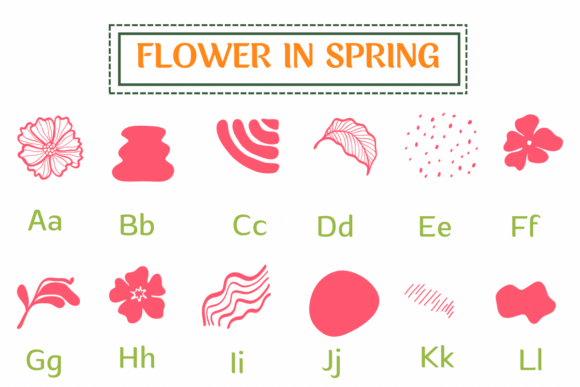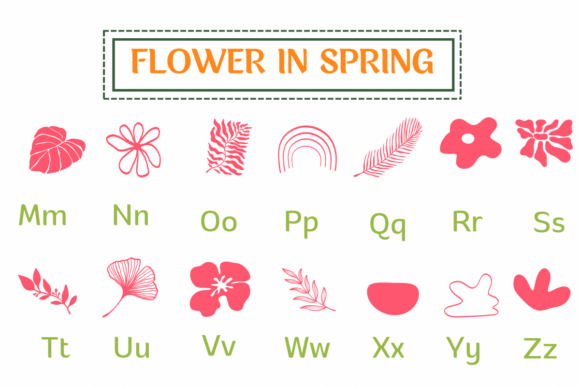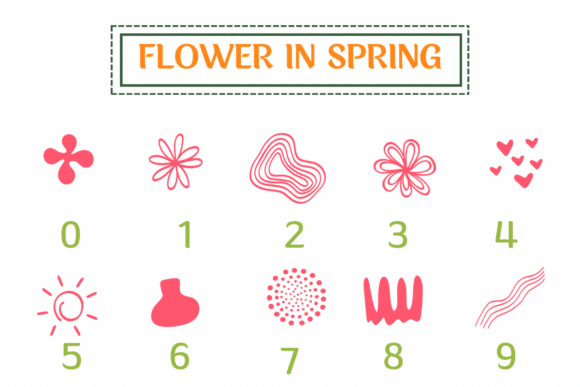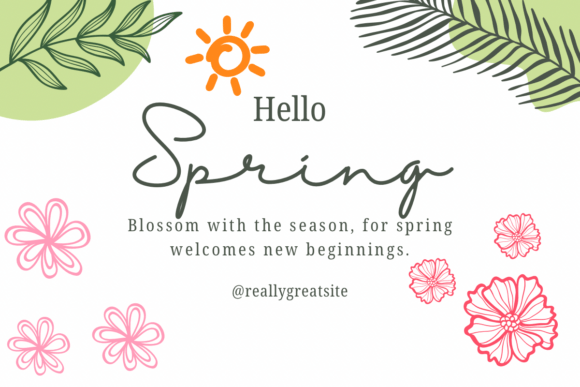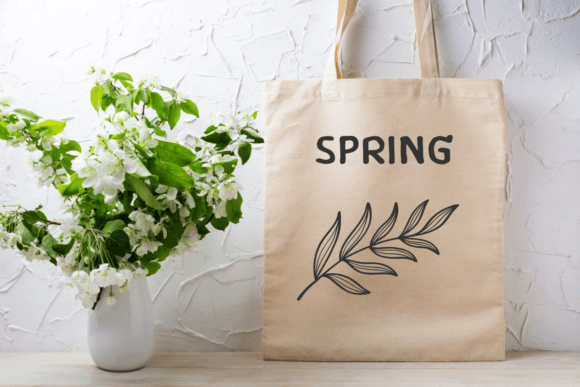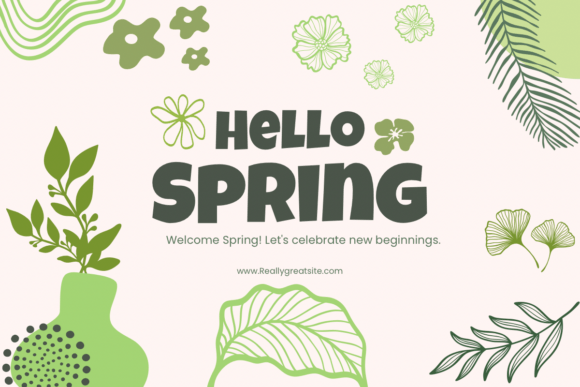
Discover the Charm of Flower in Spring Font
As a designer, I’ve had my fair share of moments where I’ve struggled to find the perfect font for a project. I recall working on a wedding invitation design for a dear friend, wanting something that captured the essence of spring. That’s when I stumbled upon Flower in Spring Font, a beautiful dingbats font with a sketched style that instantly elevated my design. In this article, I’ll share my experience with this lovely font, its features, and how you can make the most of it in your creative projects.
An Honest Review of Flower in Spring Font
- ✨ Unique and whimsical design that’s perfect for spring and Easter-themed projects
- ✅ Easy to use and pairs well with a variety of fonts, making it a great addition to any design
- 🎨 Versatile and can be used for a range of creative projects, from wedding invitations to DIY crafts
While Flower in Spring Font is a delightful addition to any design, there are a few things to keep in mind. ⚠️ Some users have reported issues with certain characters not displaying correctly. However, these issues can often be resolved by adjusting the font settings or using a different software.
🤔 Another thing to consider is that, as a dingbats font, it may not be suitable for body text or lengthy content. It’s best used as an accent font to add visual interest and personality to your design.
The Story Behind Flower in Spring Font
Flower in Spring Font was designed with the intention of capturing the essence of spring. The designer aimed to create a font that was both playful and elegant, making it perfect for a range of creative projects. The result is a beautiful, unique font that’s sure to add a touch of personality to any design.